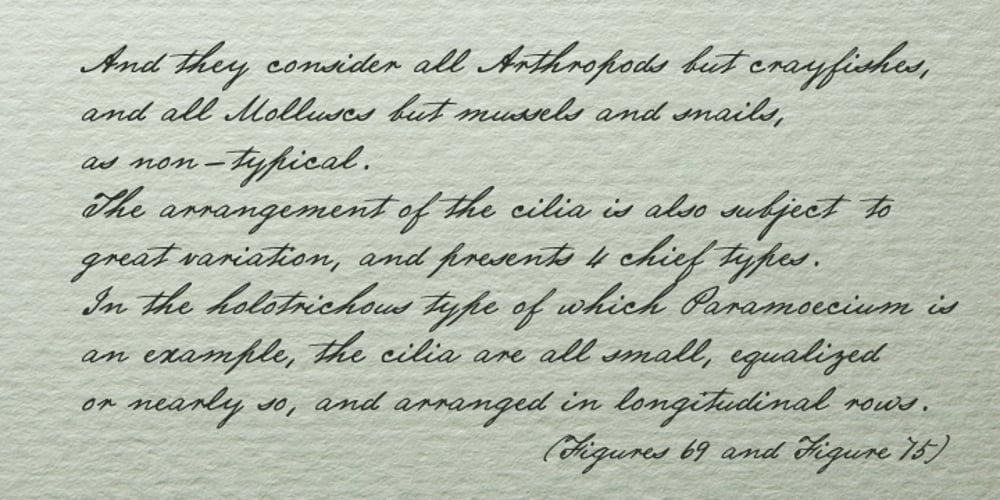
Dausby Font Family was designed by Corien Bennink and published by Corien’s Handwritingfonts. Dausby contains 1 styles and family package options. Dausby is the elegantly slanted handwriting of the 1850s. It was based on records written with a flexible tip dip pen and jet black ink by Mr. Dausby. Made for those of you who are just looking for an affordable handwriting font.